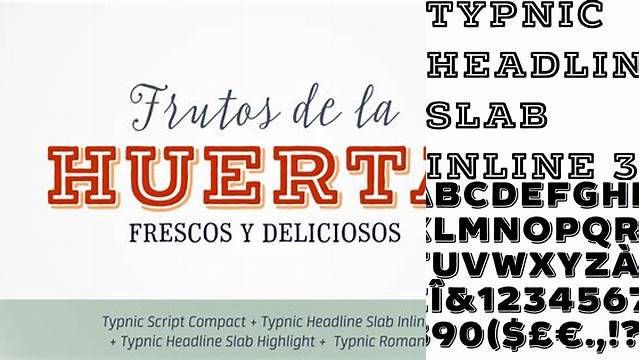
Typnic Headline Font: Free Download & Design Guide
Typnic Headline Font: Free Download and Creative Uses
Hey guys! If you're on the hunt for a fantastic headline font that's both eye-catching and free, then you've landed in the right spot! Today, we're diving headfirst into the world of the Typnic Headline Font, offering you a comprehensive guide on where to find it, how to use it, and some super cool design ideas to get your creative juices flowing. Typnic Headline Font free download is a popular search term, and for good reason! It's a versatile typeface that can seriously elevate your design projects. Whether you're a seasoned designer or just starting out, understanding the nuances of Typnic and how to access Typnic Headline Font free download is crucial. So, let's get started and unlock the full potential of this awesome font!
What Makes Typnic Headline Font Special?
Alright, let's talk about what makes Typnic so special, shall we? The Typnic Headline Font isn't just any old font; it's designed to grab attention and make a statement. Its bold and clean design makes it ideal for headlines, titles, and any text that needs to stand out. It’s got a modern feel, which is perfect for a wide range of projects – from websites and blogs to posters and social media graphics. Its versatility is one of its greatest strengths. You can use it in various contexts without worrying about it clashing with your design. Plus, the fact that there are options for Typnic Headline Font free download means it's accessible to everyone, regardless of budget. The key features of Typnic include its readability, even at larger sizes, and its ability to convey a sense of professionalism and modernity. Because of its visual appeal, many designers find that Typnic Headline Font free download is essential. It can be seamlessly integrated into various design styles, from minimalist to more elaborate layouts. Whether you're working on a personal project or something for a client, the right font can make all the difference, and Typnic often hits the mark.
When considering Typnic Headline Font free download, keep in mind the variety of design possibilities it unlocks. The font can bring any design from simple to extraordinary. Its adaptability, combined with its striking appearance, allows you to develop visuals that create an immediate effect on the audience. This makes it especially well-suited for marketing materials where catching the eye is key. Using Typnic in your projects shows that you are up-to-date with current design trends. It is suitable for a wide range of tasks, including branding, web design, and print media, because of its simplicity and bold character. Additionally, remember that proper typography can increase the effectiveness of your message, and Typnic can help with that.
Tips for Using Typnic Headline Font Effectively
Now that you've got your hands on the Typnic Headline Font free download, let's talk about how to use it effectively. Here are some tips to make the most of this awesome font:
- Use it for Headlines and Titles: As the name suggests, Typnic is perfect for headlines, subheadings, and titles. Its bold nature ensures that your message is instantly noticeable.
- Pair it with Other Fonts: Don't be afraid to pair Typnic with other fonts for body text and supporting information. A good pairing can enhance readability and visual appeal. Consider using a clean, simple font for body text to complement Typnic's boldness.
- Consider the Size and Spacing: Play around with the size and spacing of Typnic to find what looks best for your design. Sometimes, a slightly larger size or adjusted kerning (the space between letters) can make a big difference.
- Color and Contrast: Pay attention to color and contrast. Ensure that the color of your Typnic text stands out against the background. High contrast makes your text easier to read.
When using Typnic Headline Font, there are various ways to experiment. For example, to draw attention to an article, use Typnic in bold headlines. Typnic works effectively in a variety of settings, including print and digital media. Another significant element to consider is the font's legibility. Although Typnic is made to stand out, make sure the size is appropriate for the context. For example, use a larger font for posters or banners. Using negative space is another design trick. By giving enough space around the text, it won't look crowded, and the headline will stand out. Don't forget about the importance of alignment. You can use this to create an appealing and unified look. Remember to test out various font pairings, sizes, and colors to find what best fits your project. This way, you can use Typnic in a way that matches both the message and the target audience.
Design Ideas and Inspirations with Typnic
Need some inspiration, guys? Here are some design ideas to get you started with your Typnic Headline Font free download:
- Website Banners: Create eye-catching website banners with bold Typnic headlines to draw visitors' attention.
- Social Media Graphics: Use Typnic to create compelling social media posts, quotes, or announcements.
Conclusion: Get Started with Typnic Today!
So there you have it, guys! A complete guide to the Typnic Headline Font – from Typnic Headline Font free download to design ideas and troubleshooting tips. This font is a fantastic asset for any designer's toolkit, providing a bold and modern look that can elevate your projects. So, what are you waiting for? Go ahead and download Typnic, experiment with it, and let your creativity run wild! Happy designing!